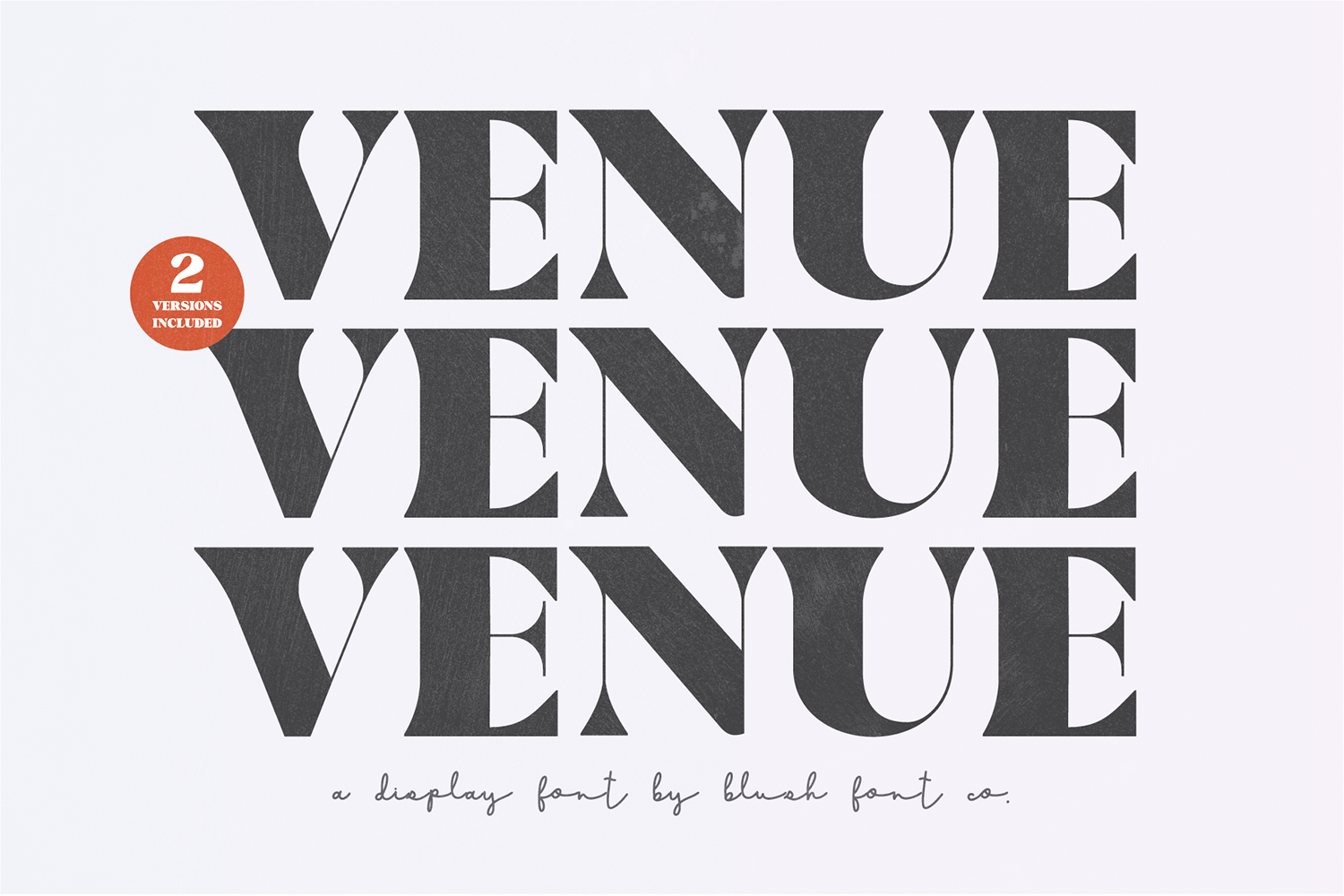
VENUE Modern Serif Wedding Font
"Venue" a modern stylish serif display font.
2 versions included! Regular and Bold.
Multilingual support.
This font is a bold display font that is perfect for wedding or crafty projects. Use it for branding, crafts for decor, invitations, and more! All caps glyphs, numbers, punctuation marks, and intl characters for both versions.